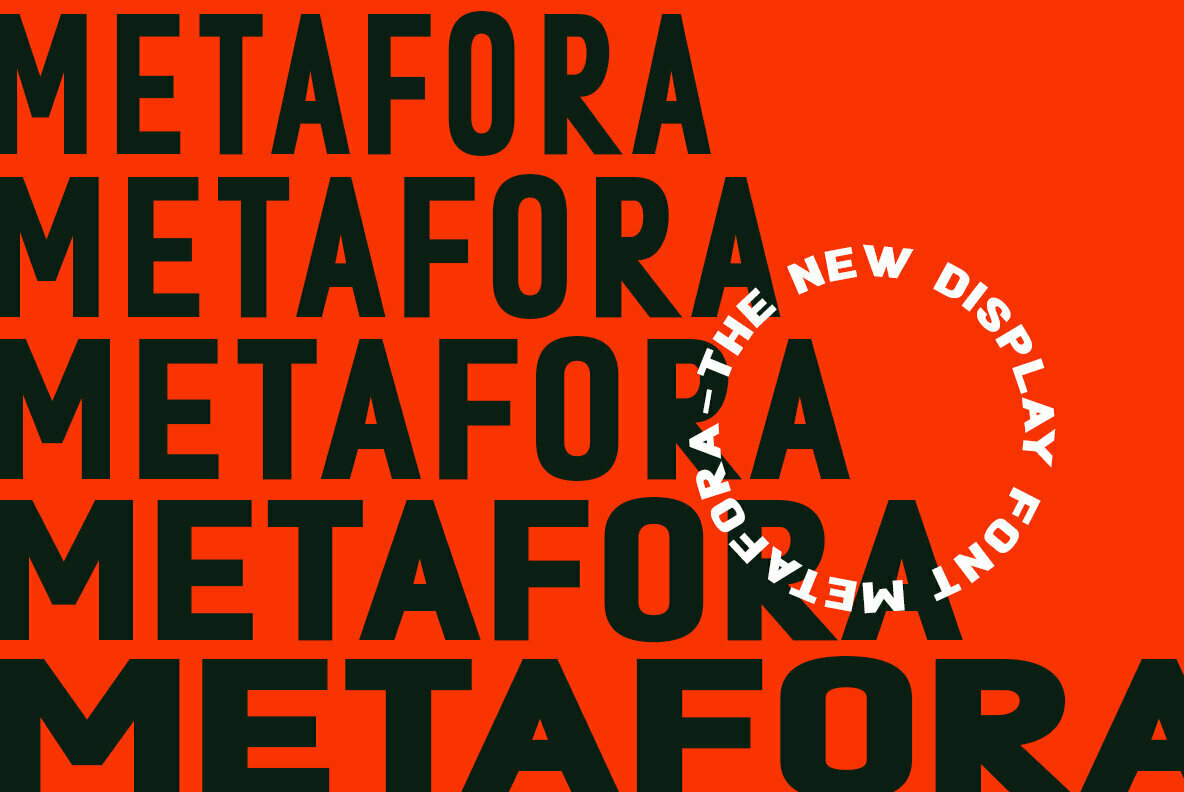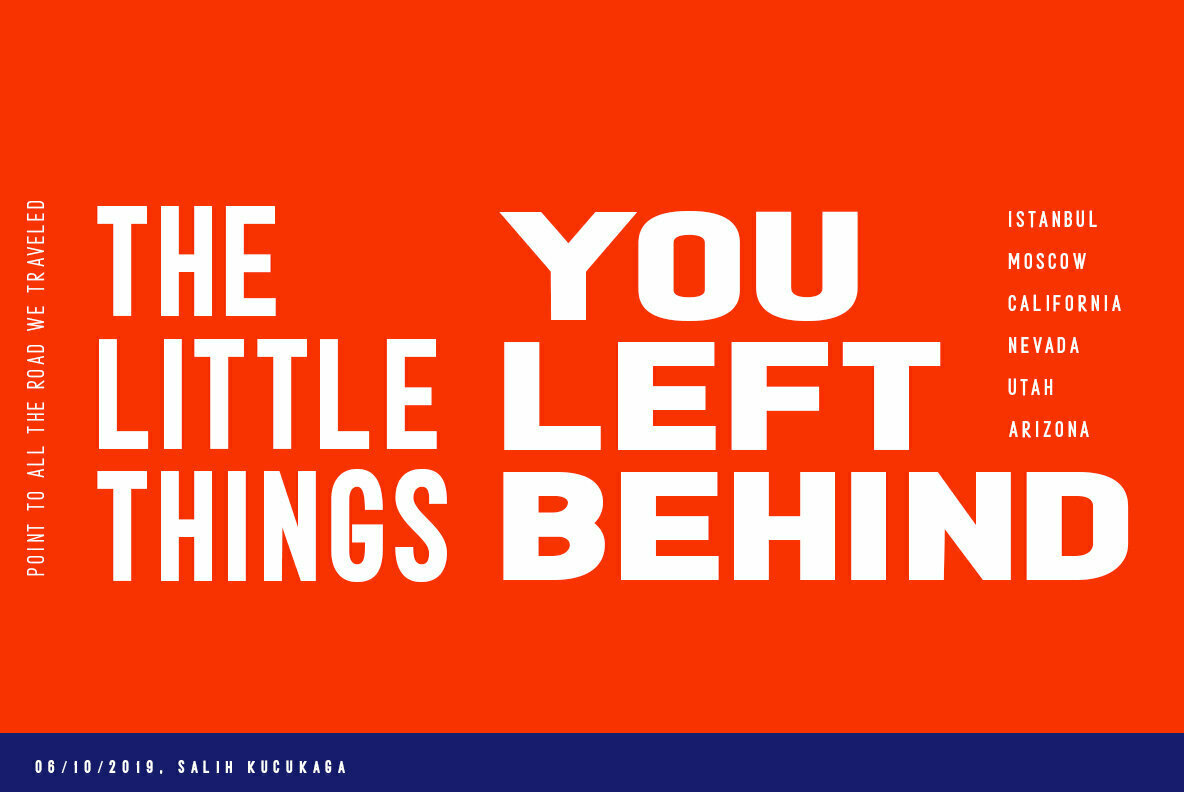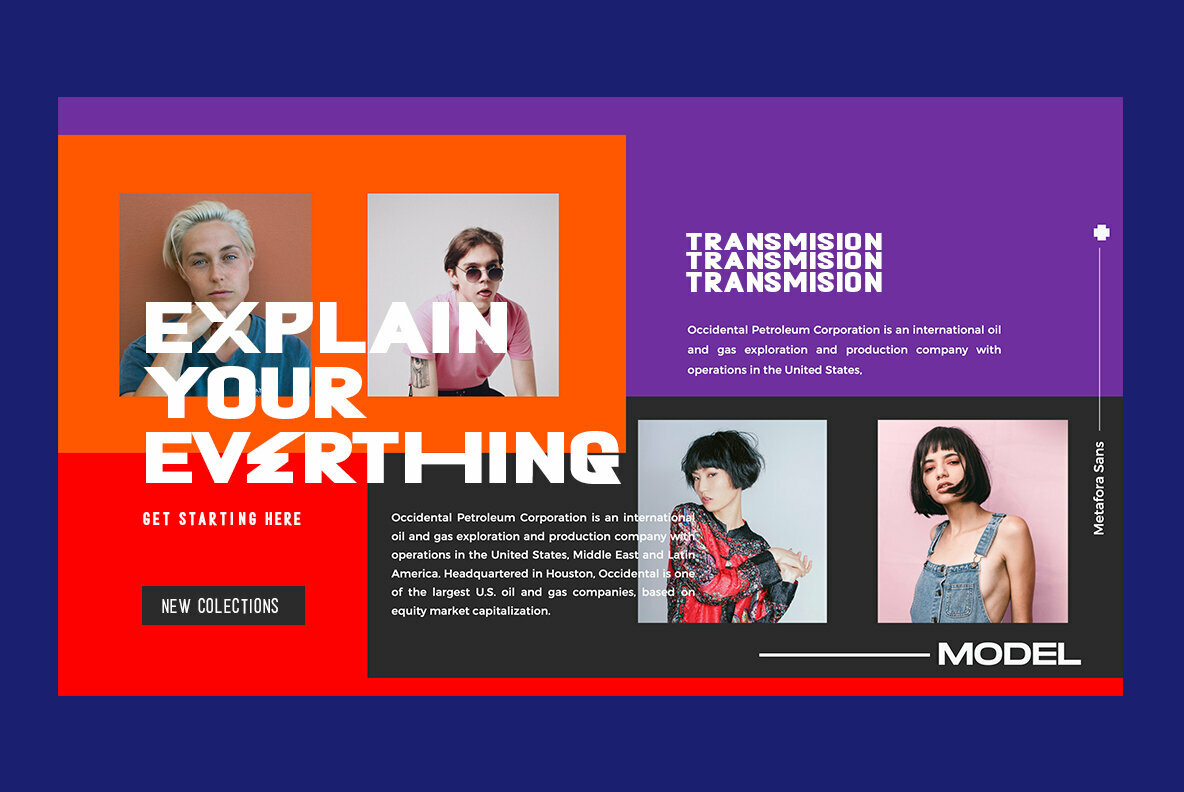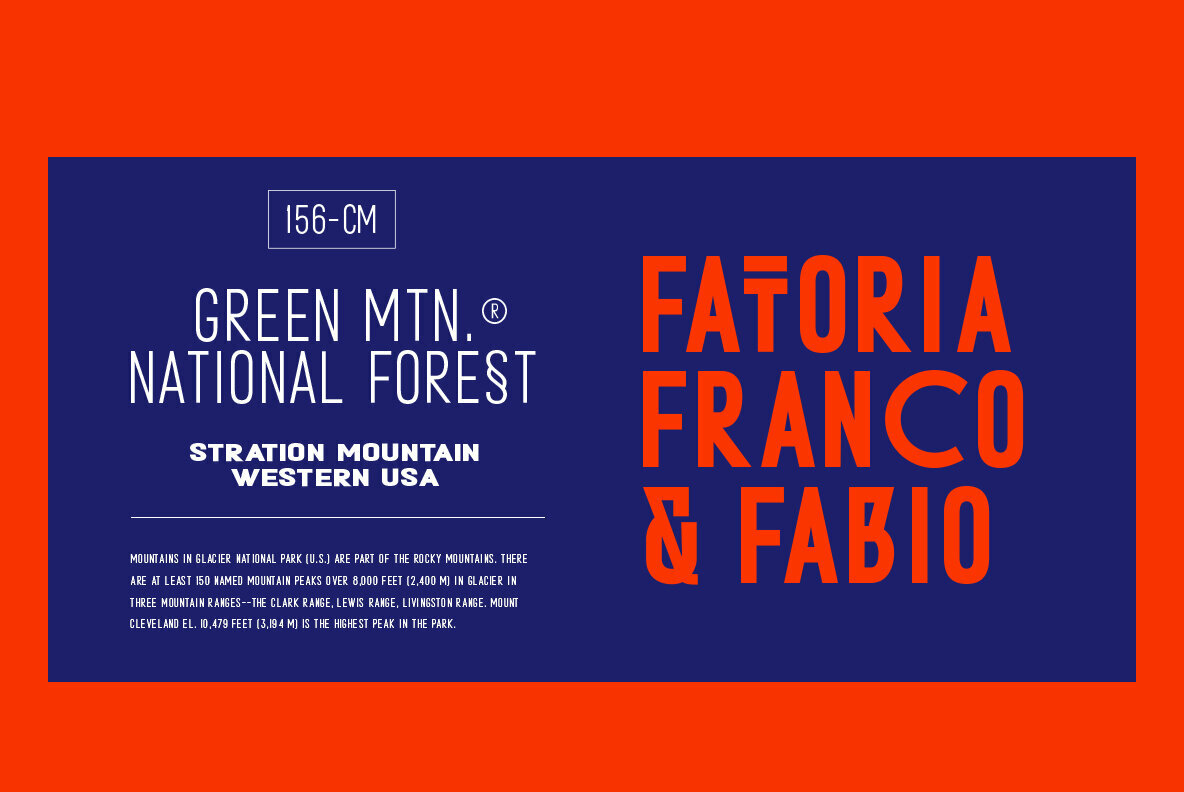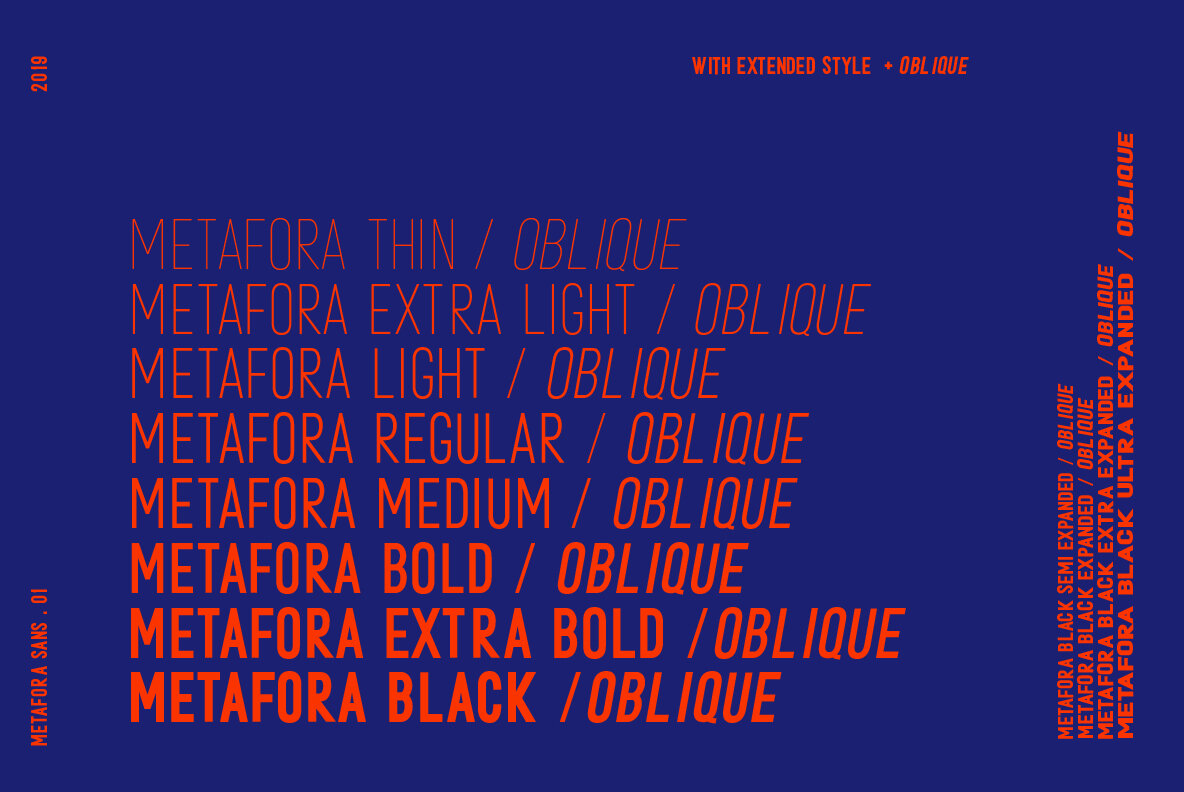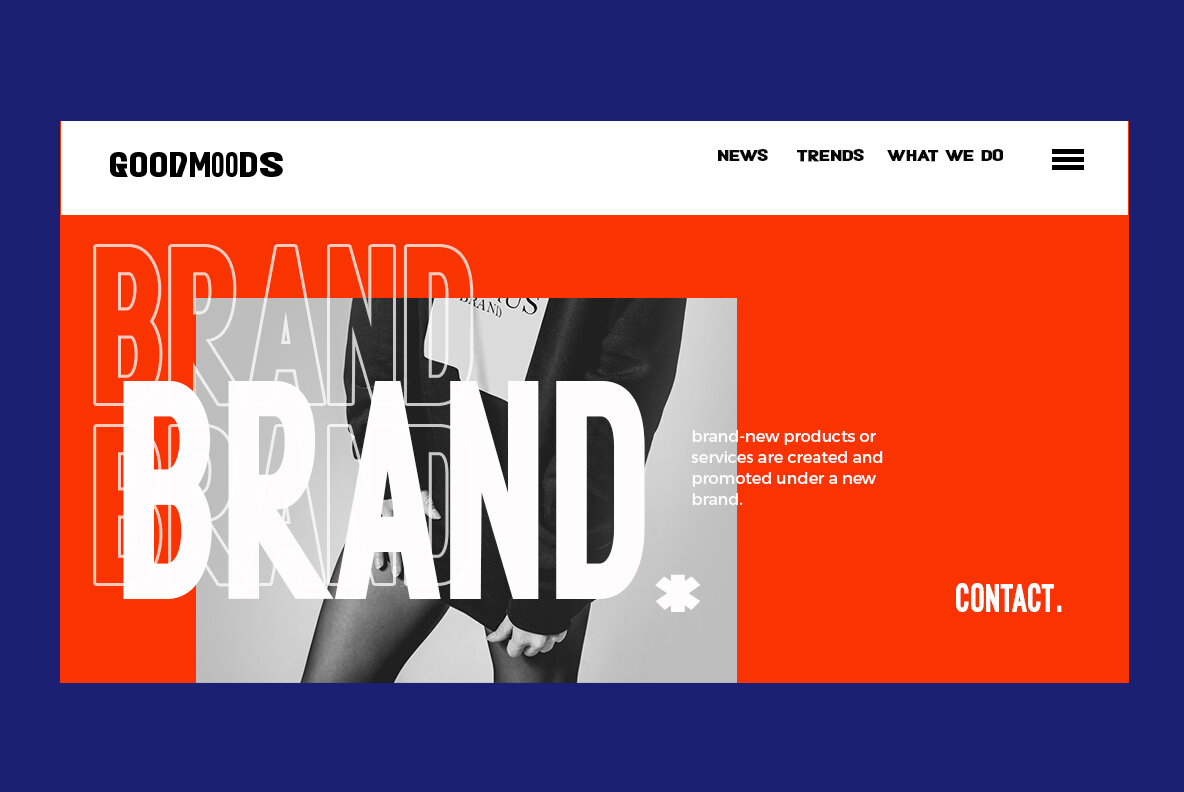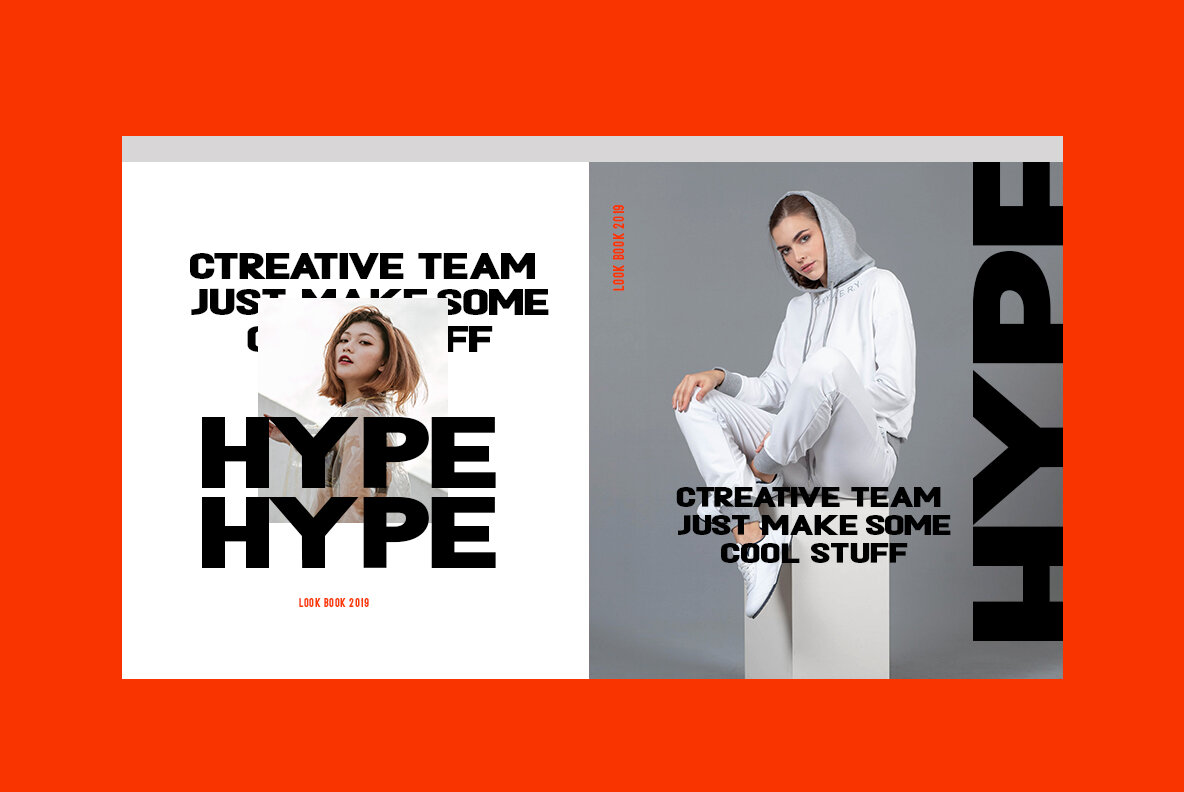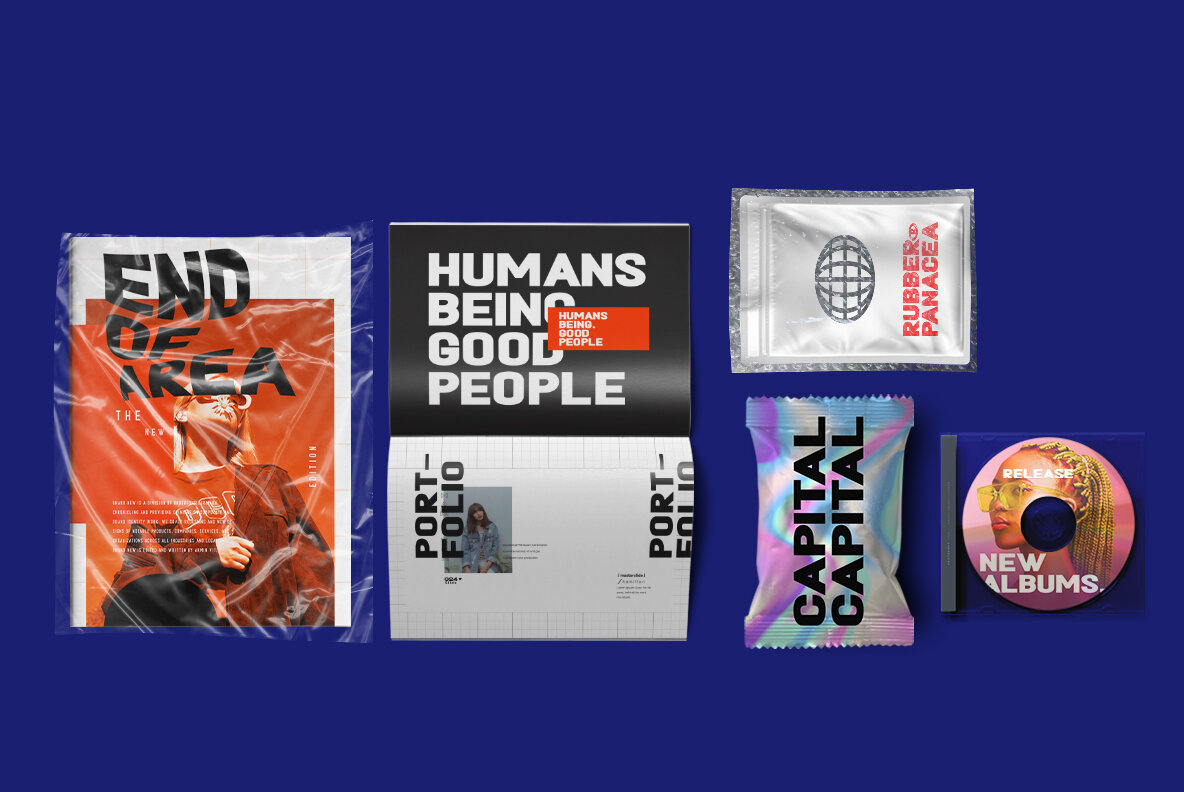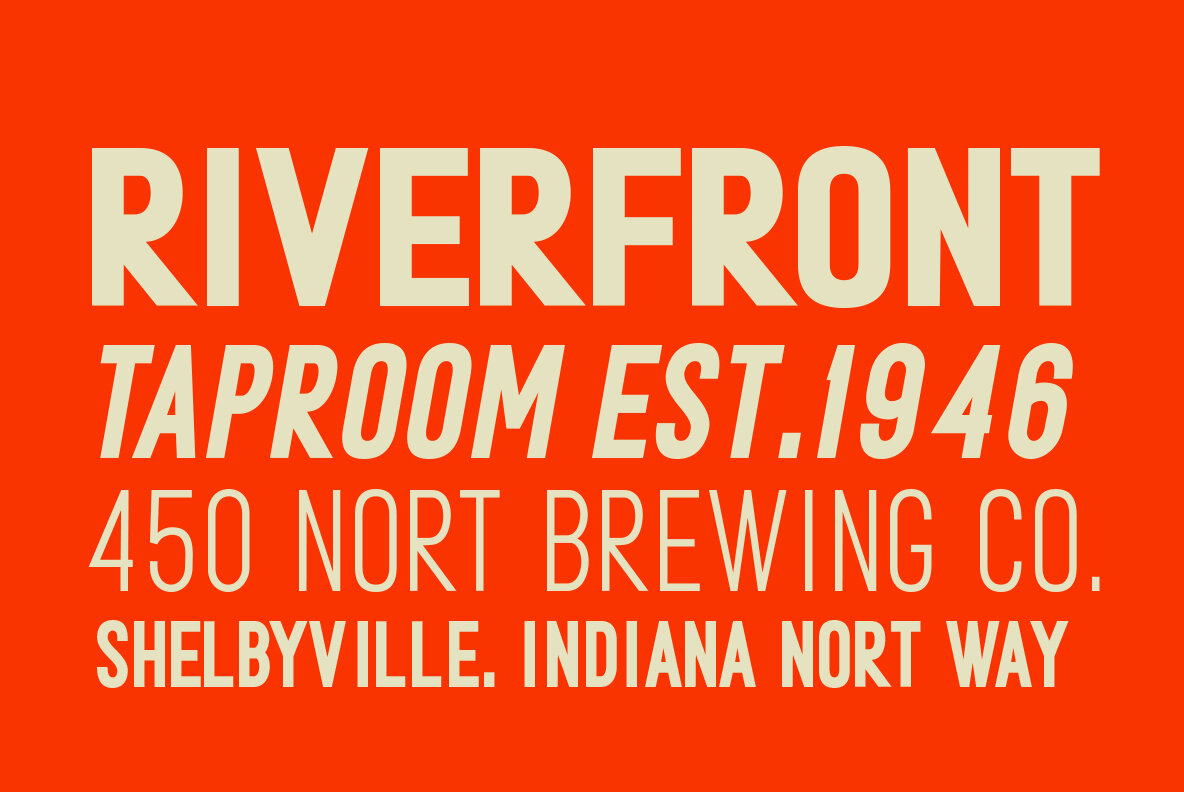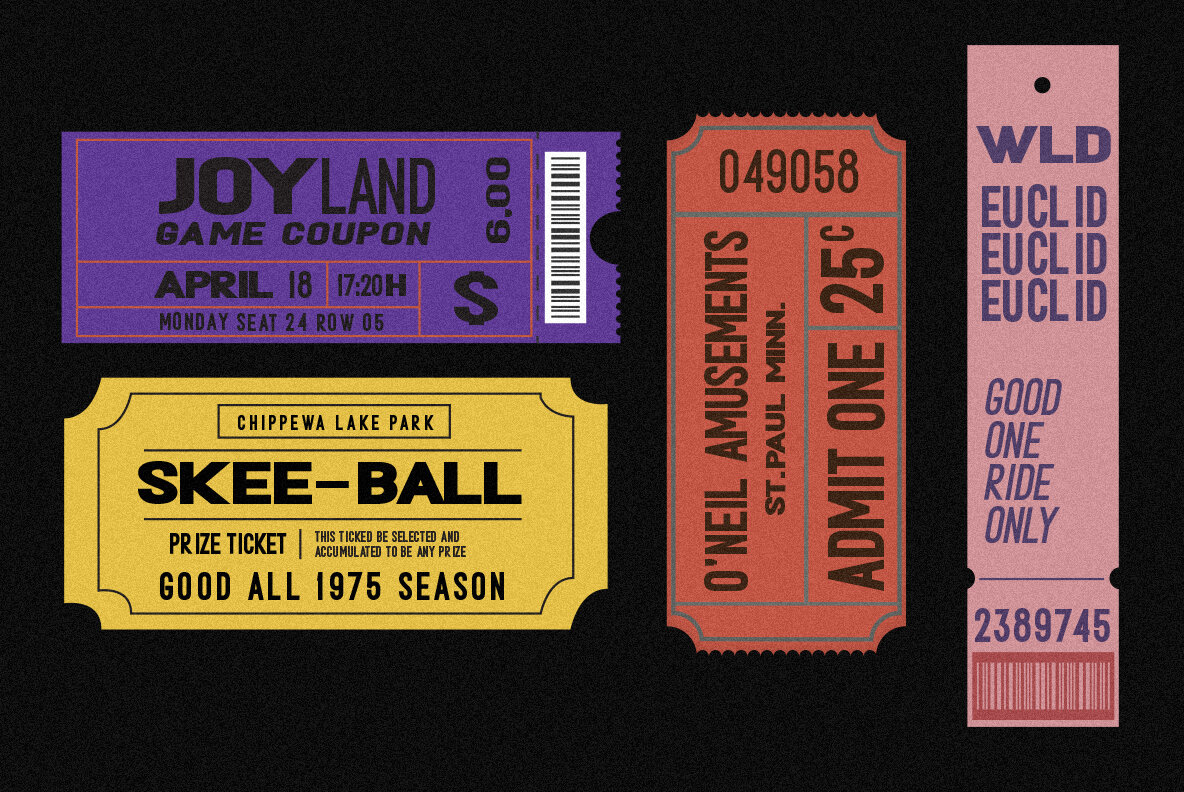
METAFORA Font
Metafora Sans by Dirtyline Studio embodies modern elegance, making it an indispensable tool for both digital and print projects. Designed with versatility in mind, this contemporary display font excels across an array of design contexts. With 13 weights available, Metafora Sans offers ample choice within its Upright and Oblique styles, totaling 26 distinct variations. This comprehensive range ensures that it can seamlessly integrate into logo design, brand identities, websites, packaging, posters, and headlines, providing consistency and flair.Metafora Sans: Versatile Display Typeface